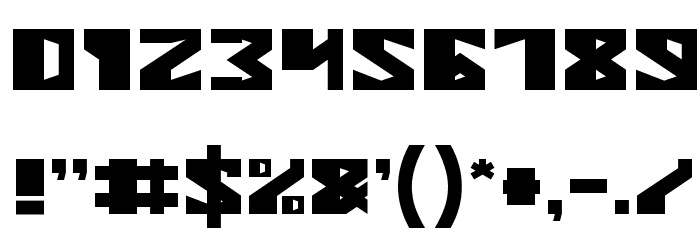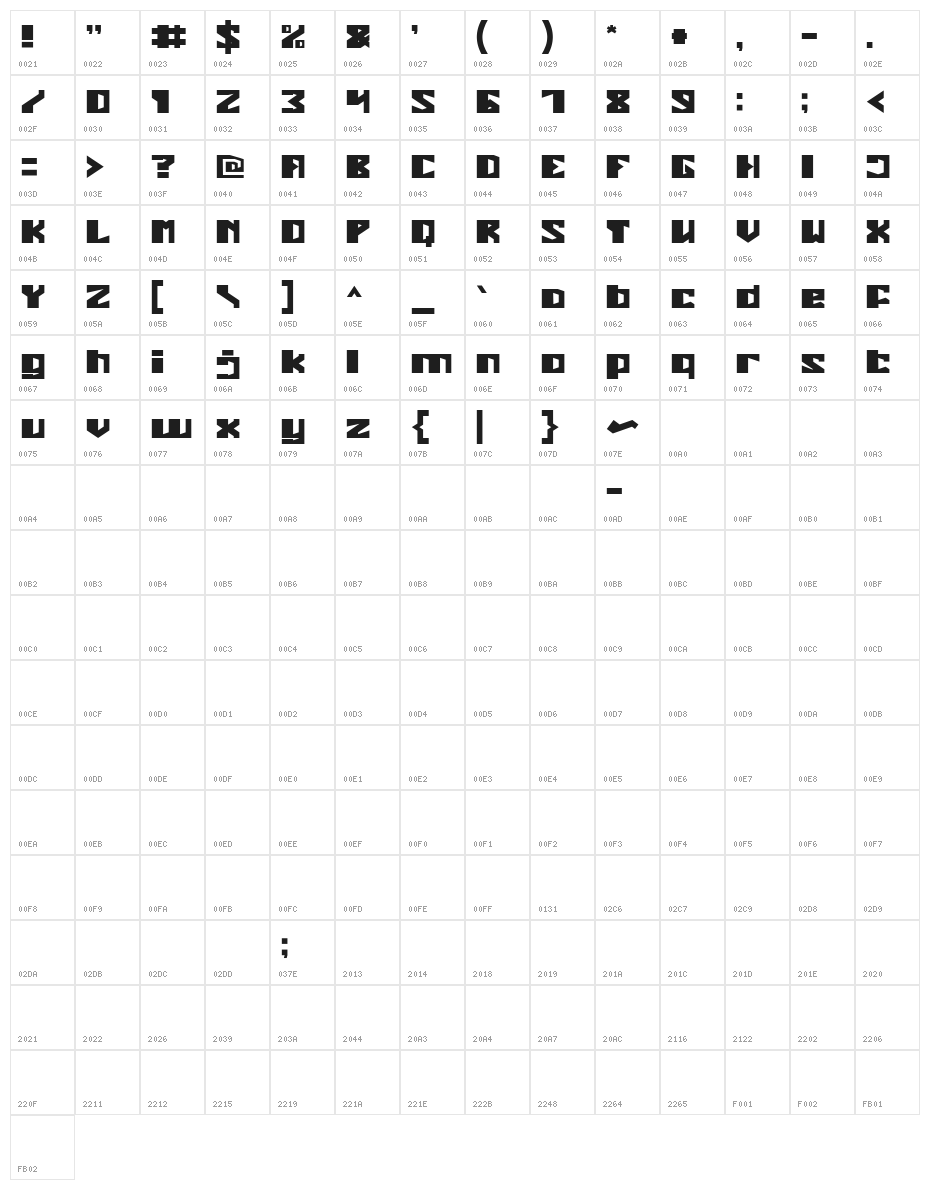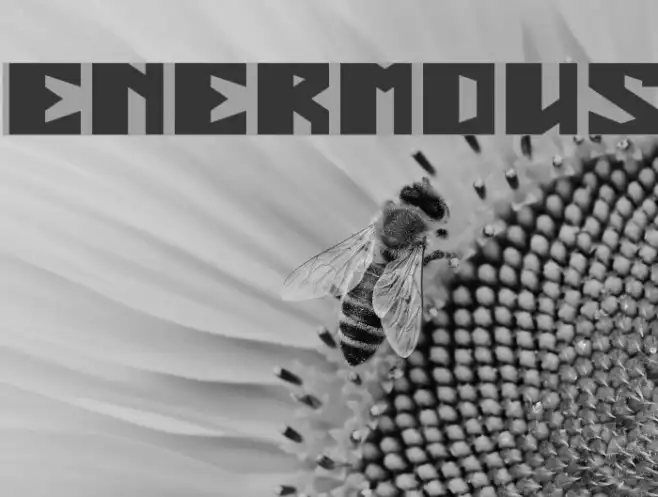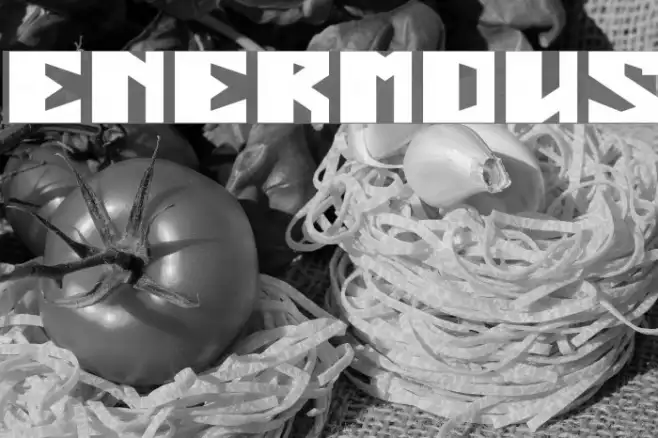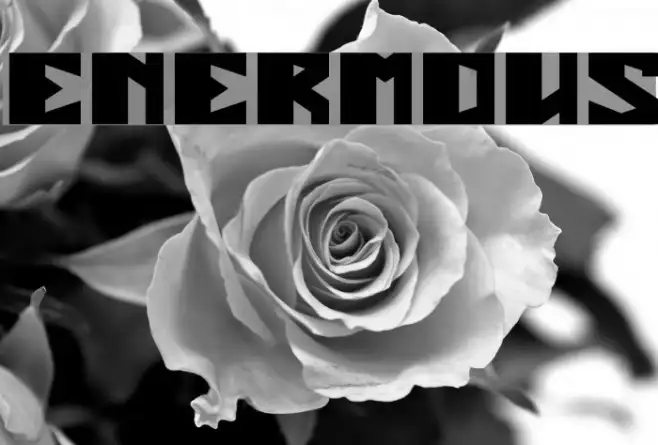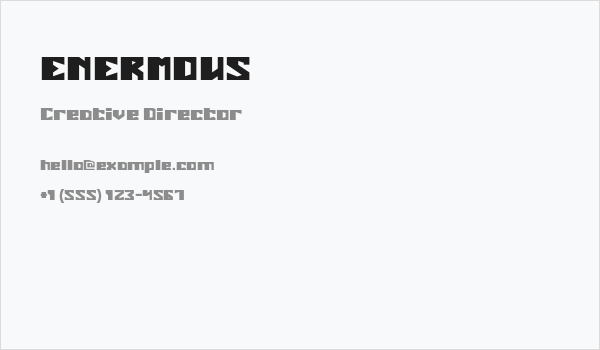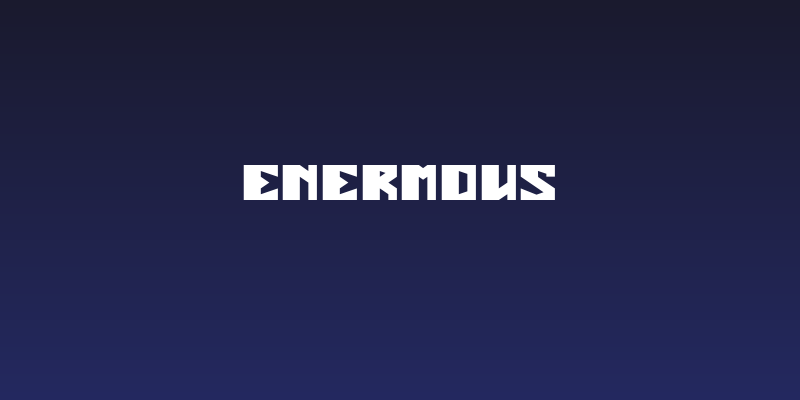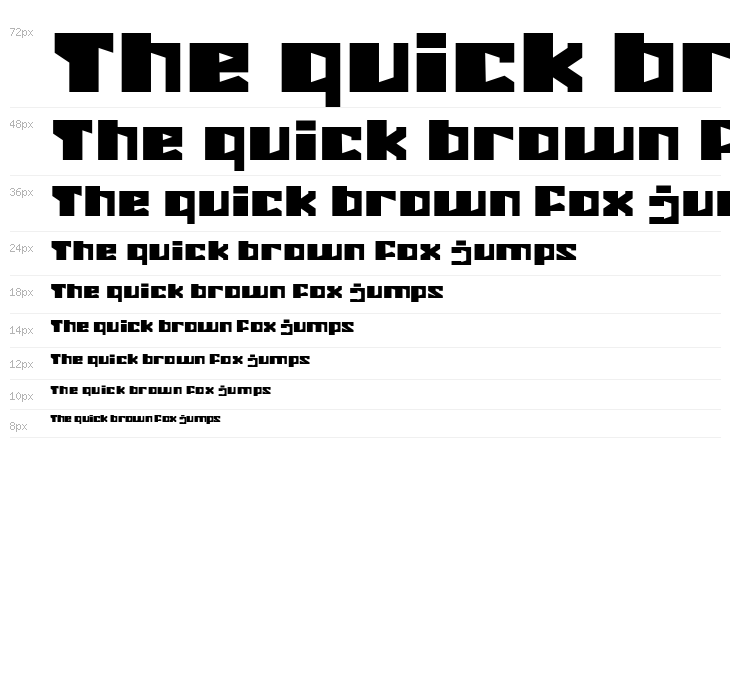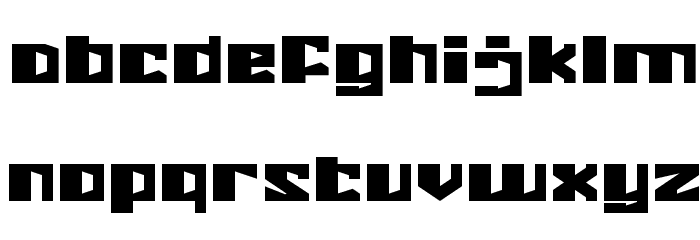
ENERMOUS Font
ENERMOUS Description
This font features a bold and geometric design with sharp angles and a blocky appearance. The uppercase and lowercase letters maintain a consistent style, characterized by their angular cuts and solid structure. The numbers and special characters follow the same aesthetic, making them stand out with a strong presence. The overall look is modern and edgy, suitable for projects that require a striking and impactful visual element. The font's unique style makes it ideal for attention-grabbing headlines or logos that need to convey strength and modernity.